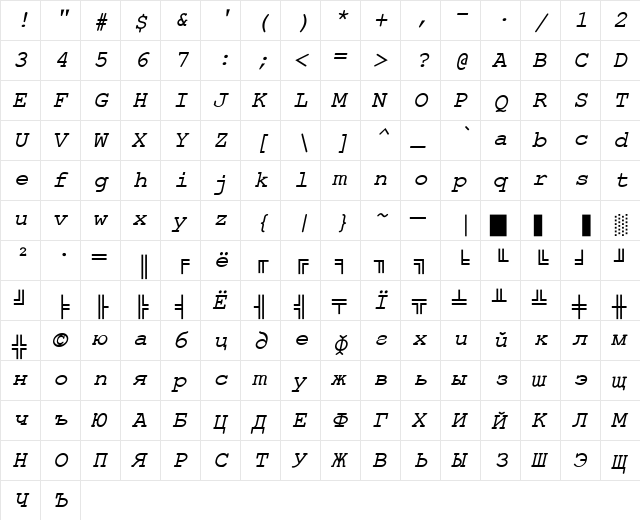
ER Kurier KOI8-R Italic
Design Context for ER Kurier KOI8-R Typeface
ER Kurier KOI8-R is a composed and adaptable typeface that performs quietly and consistently across a wide range of design contexts. The dynamic lean of this cut emphasises speed and emphasis in any layout.